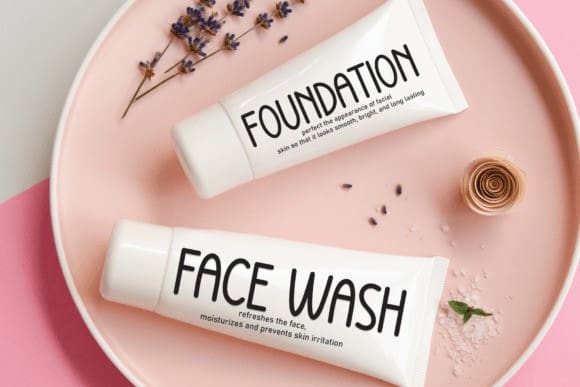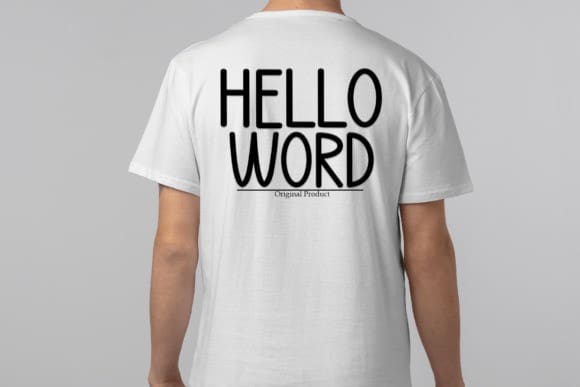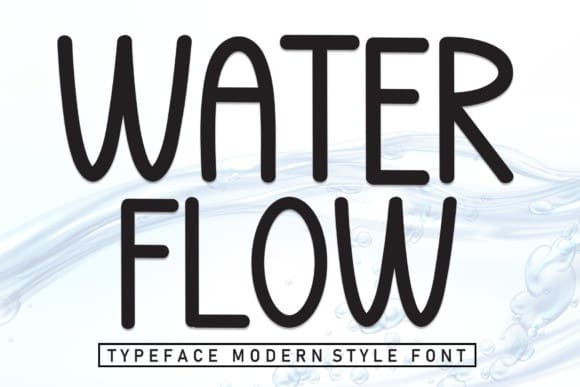
Water Flow Font
Water Flow Font is a sweet and friendly handwritten font. Fresh and casual, this font is ideal for writing wedding invitations, cards, or any other design that might need a lovely touch.